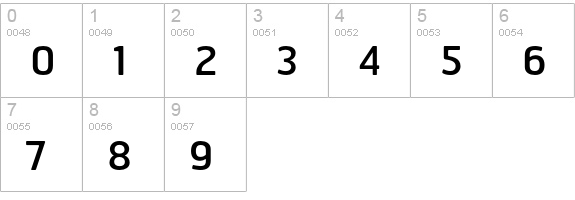
Hermes-Regular is the standard, neutral variant in the Hermes typeface family \xE2\x80\x94 well suited to general body text, paragraphs, and standard typographic work.
Hermes-Regular font is a modern and versatile typeface designed for clarity and readability in various design projects. This elegant font features clean lines and balanced proportions, making it perfect for both digital and print applications. With its timeless appeal and sleek aesthetic, Hermes-Regular font effortlessly conveys a sense of sophistication and professionalism. The best part is that Hermes-Regular font is available for free download at FontsMarket.com. This means that you can easily access and use this high-quality font in your projects without any cost. Whether you're designing a website, creating a logo, or working on a branding campaign, Hermes-Regular font is a reliable choice that will elevate your designs and make them stand out. Don't miss out on the opportunity to enhance your design projects with the stylish and versatile Hermes-Regular font. Download it for free today at FontsMarket.com and unleash your creativity with this exceptional typeface.